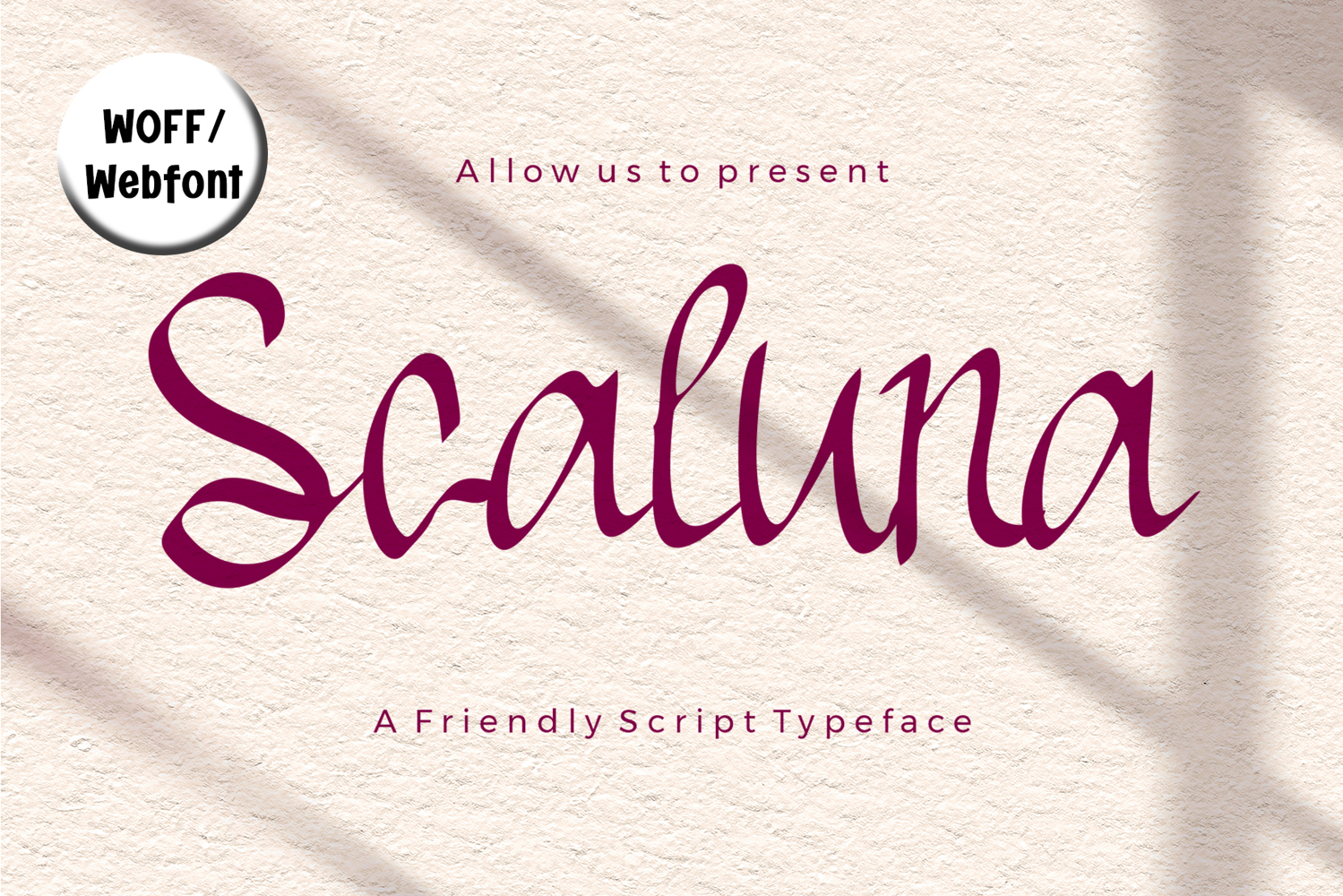
Scaluna Webfont - Elegant Script Typeface for Websites
Scaluna Webfont is the perfect script typeface to elevate your website’s typography with a touch of warmth and elegance. This web-optimized version is crafted specifically for smooth rendering across all modern browsers and devices, maintaining readability without losing its stylish handwritten charm.
With its friendly, flowing characters, Scaluna Webfont is ideal for:
• Blog headers and subheadings
• Hero banners and landing pages
• Portfolio sites
• Beauty & lifestyle websites
• Feminine branding
• Online boutiques
Designed with performance in mind, Scaluna delivers an elegant aesthetic without compromising loading speed. Its smooth curves and distinctive letterforms create a welcoming tone for your brand presence online.